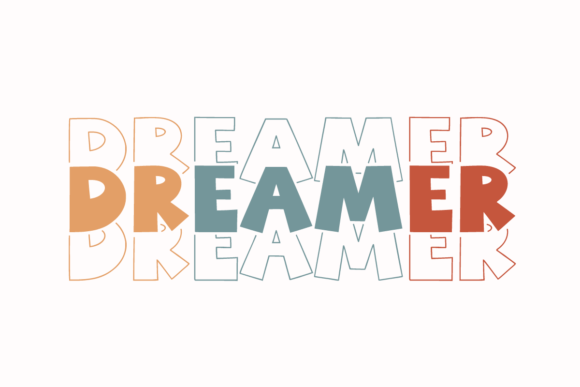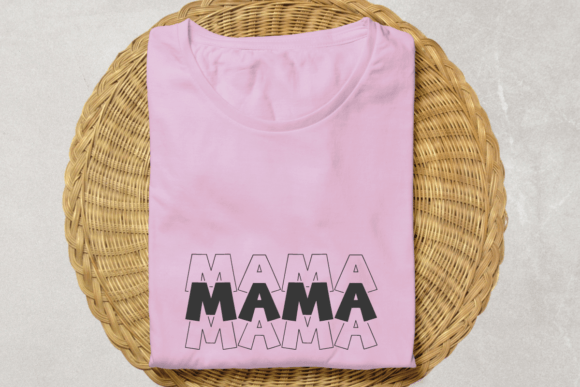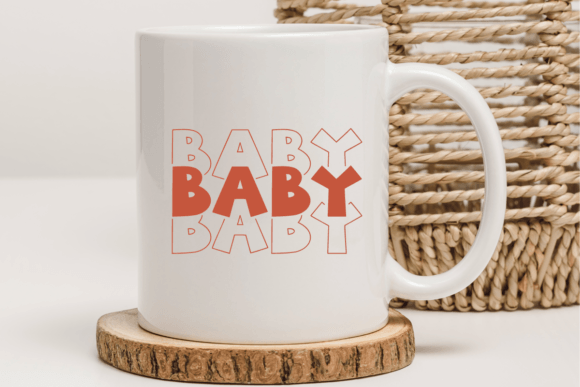
Introduction to Cowboy Font
Font Cowboy Stacked, radiating a fusion of playfulness and sophistication.
The stacked effect breathes a unique style into this typeface, making it an exceptional choice for diversified projects and distinctive branding Each character in this font reflects a delightful blend of cute allure and stylish elegance.
Key Features of Cowboy Font
Why Choose Cowboy Font?